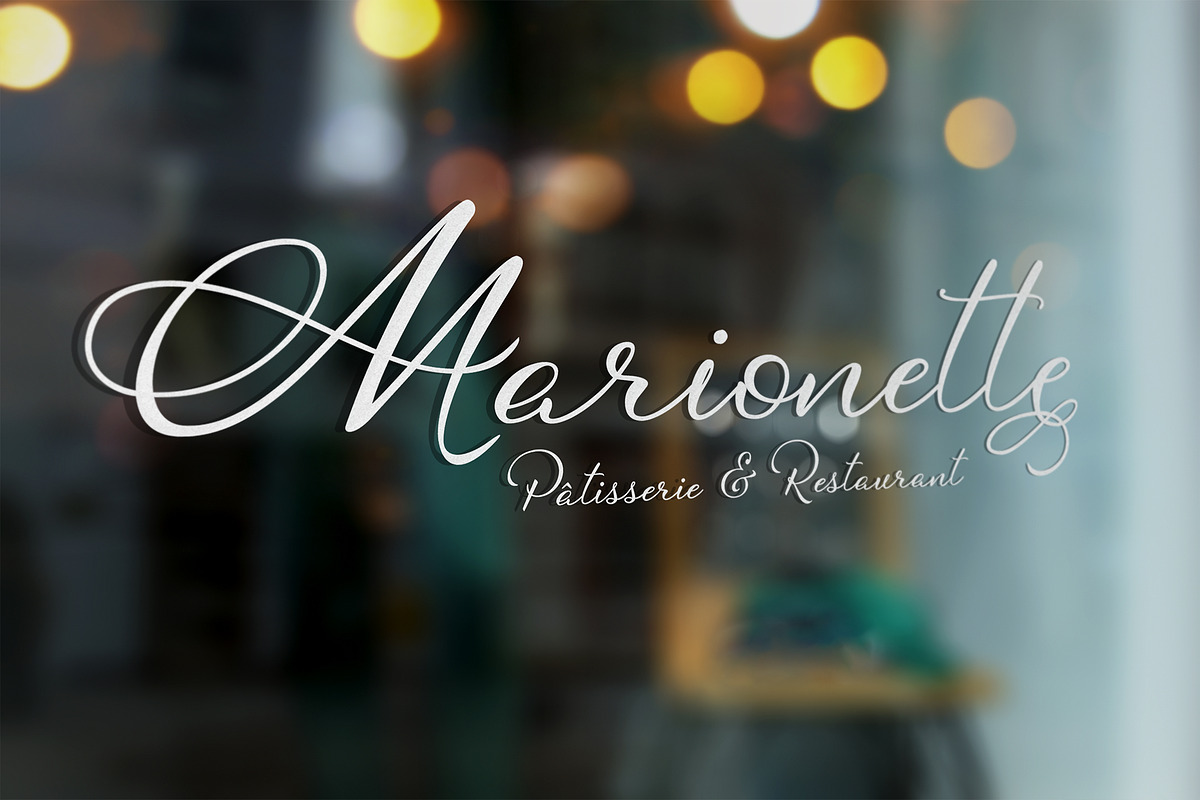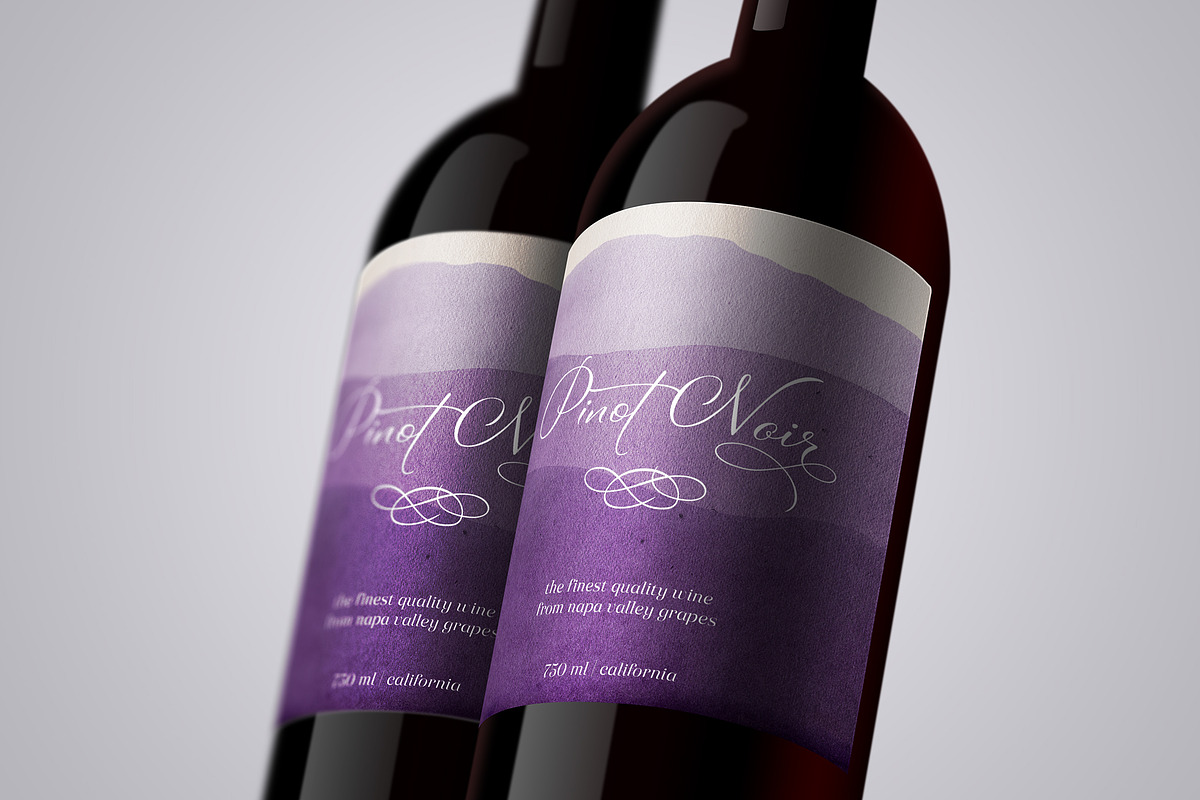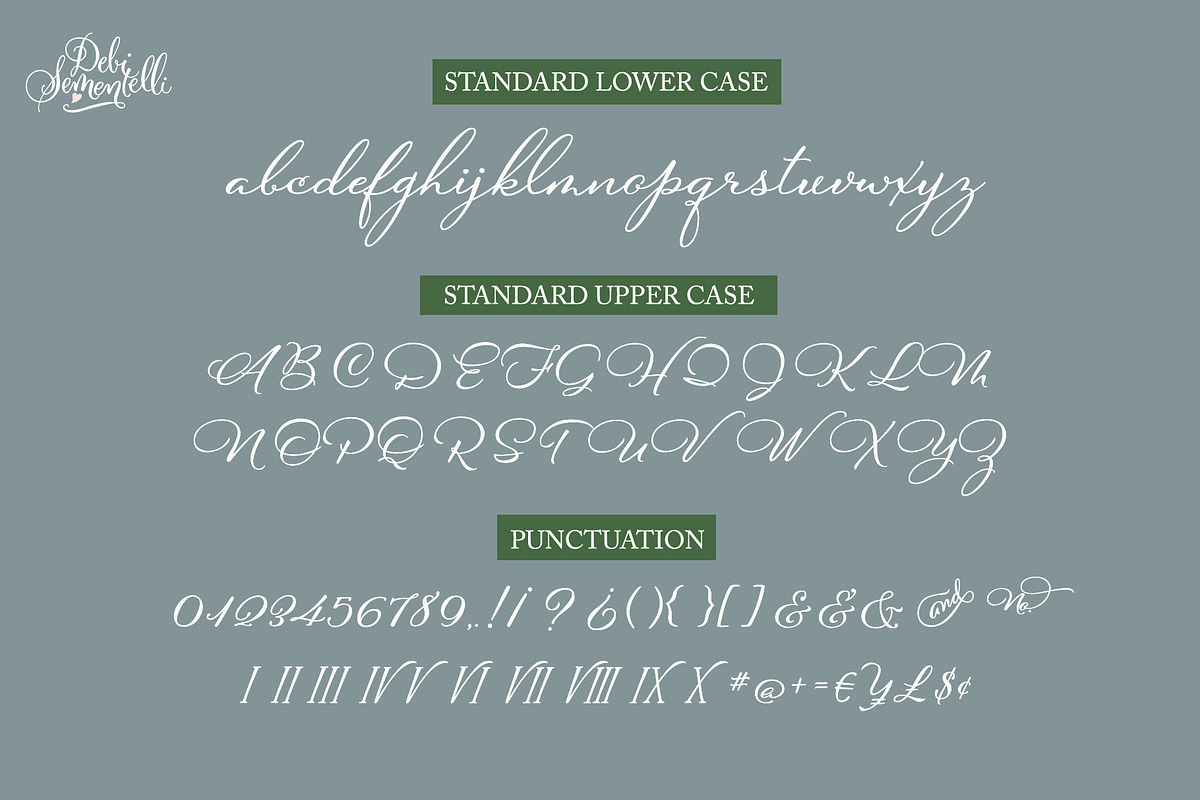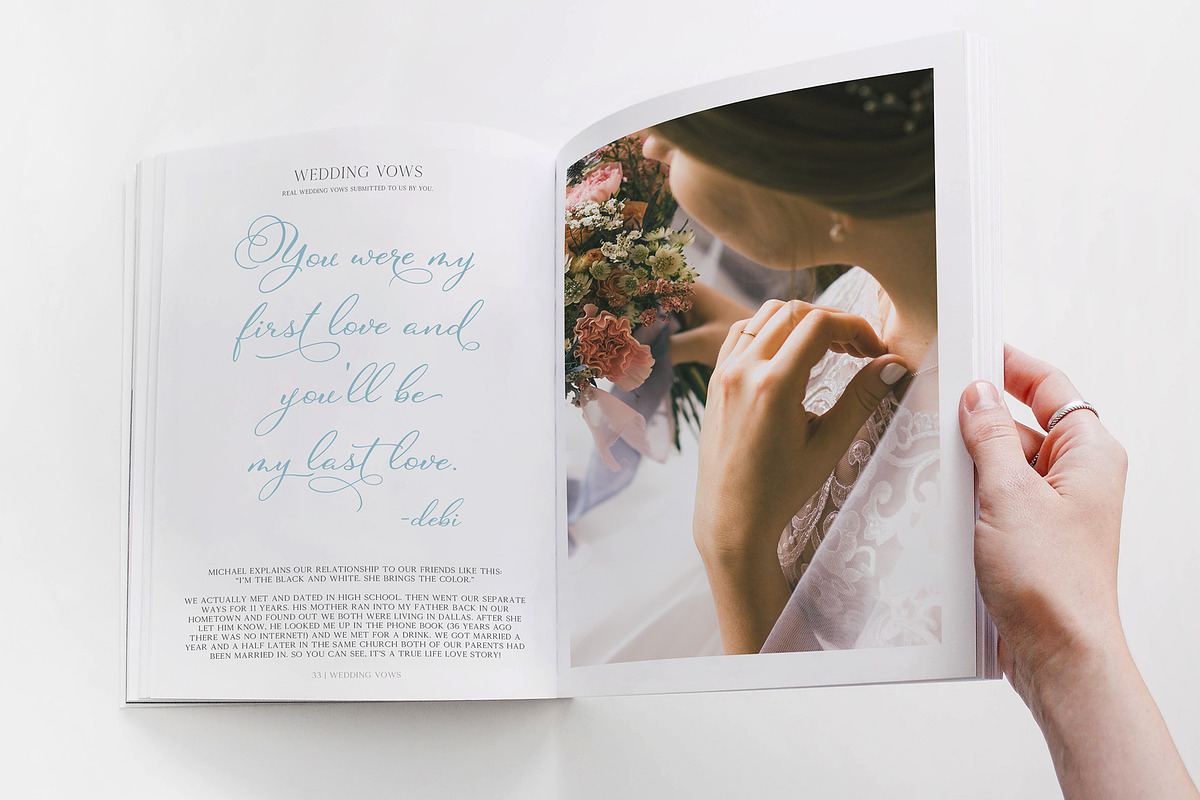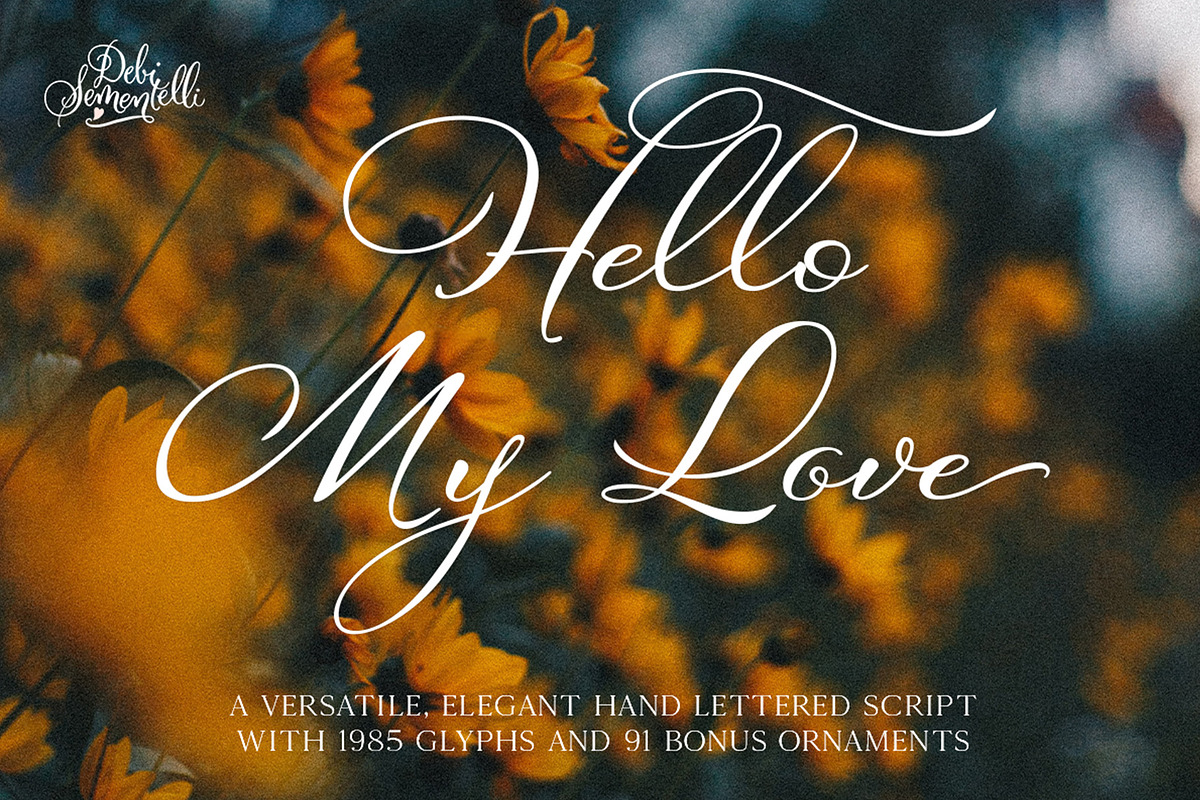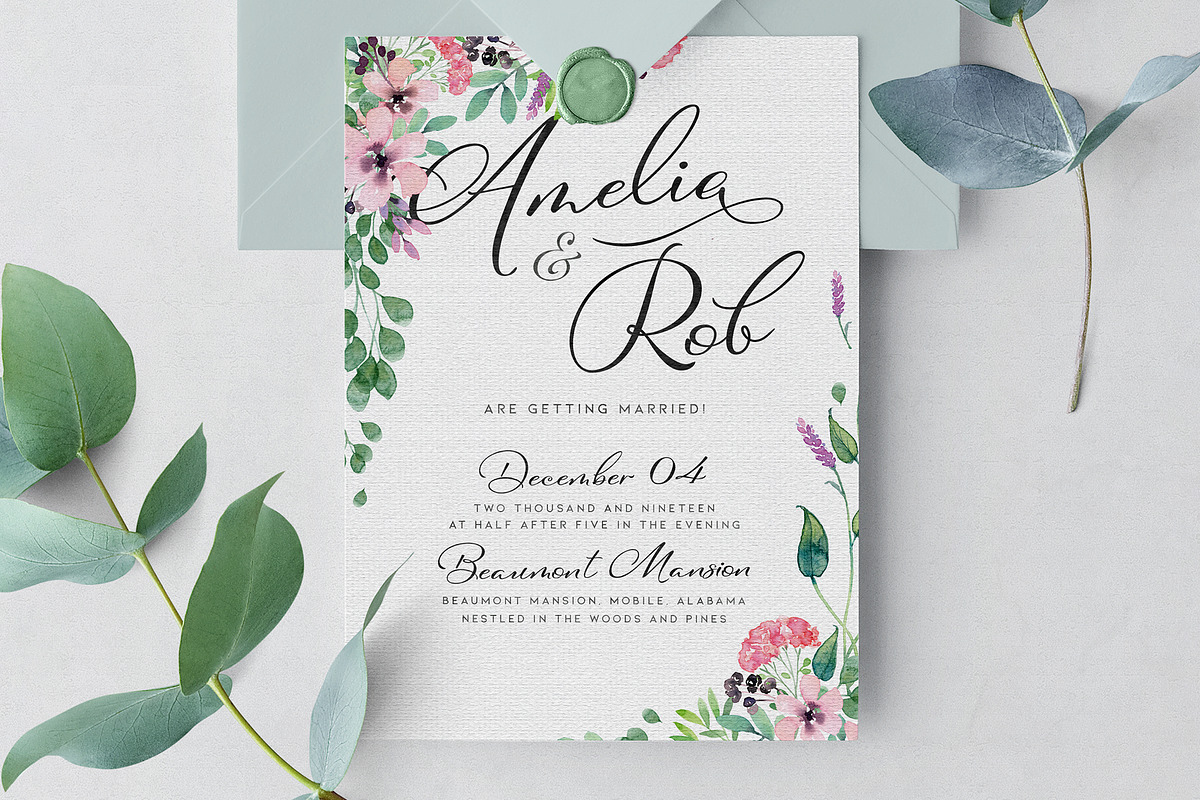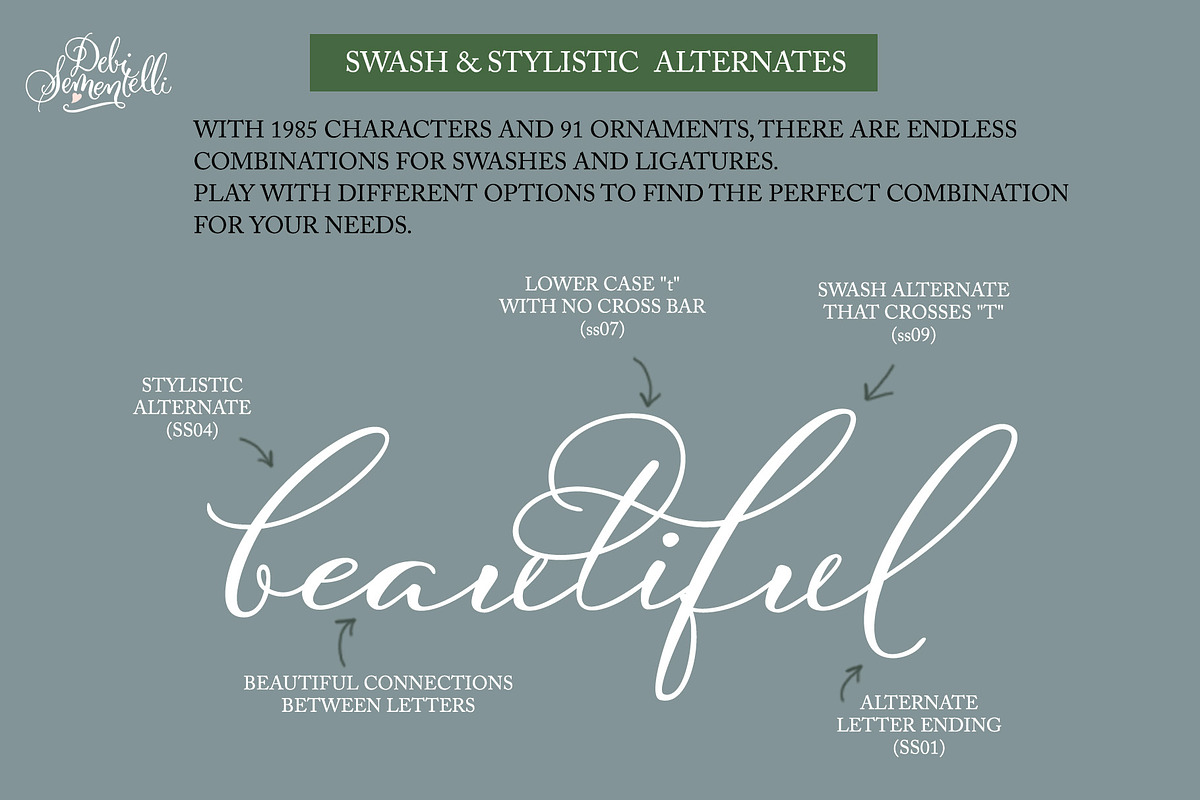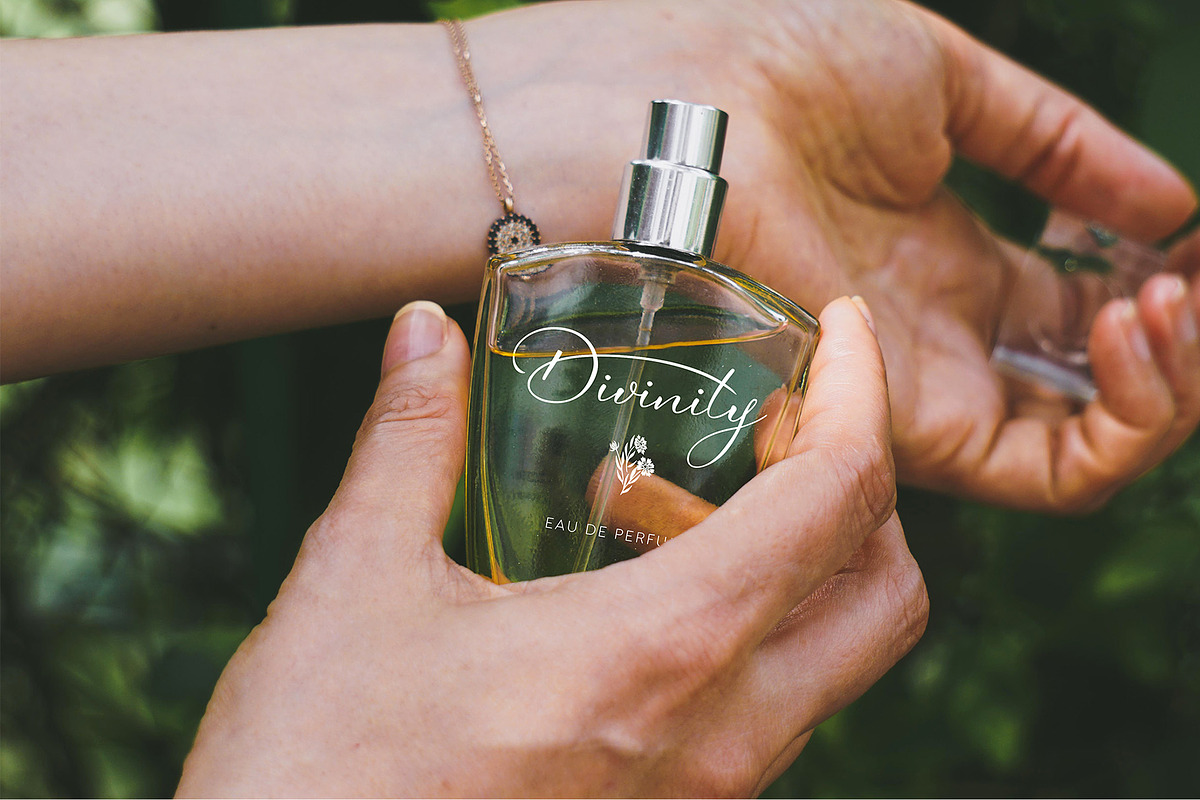
Hello My Love Pro Script Font
“Hello My Love” is a font love story – a match made in heaven, inspired by my own long and happy marriage. A classic hand-lettered script with a modern and fresh feel, it sweetly dances across the page working beautifully with current designs and yet is sure to stand the test of time.
What's included in the Hello My Love Pro Script Font? 1985 glyphs including 215 stylistic alternate upper case and 259 stylistic alternate lower case letters as well as 69 ligatures to give you plenty of options! Beginning Swashes in 4 different styles and 3 different lengths to create unique beginning lower case letters. Swash Caps to add lots of fancy! Contextual Alternates to allow for a more natural letter flow. Roman Numerals. Cross-less "t" and "f" with separate cross bars to be placed where they fit best. Multi Lingual Support for 129 languages. Bonus 91 piece ornament font filled with frames, florals and elements that will allow you to create a variety of designs. Especially great for branding and event, creating invitation suites and day of event signage.
- Bonus gift…Hello My Love Ornaments (91 total) included in the download!